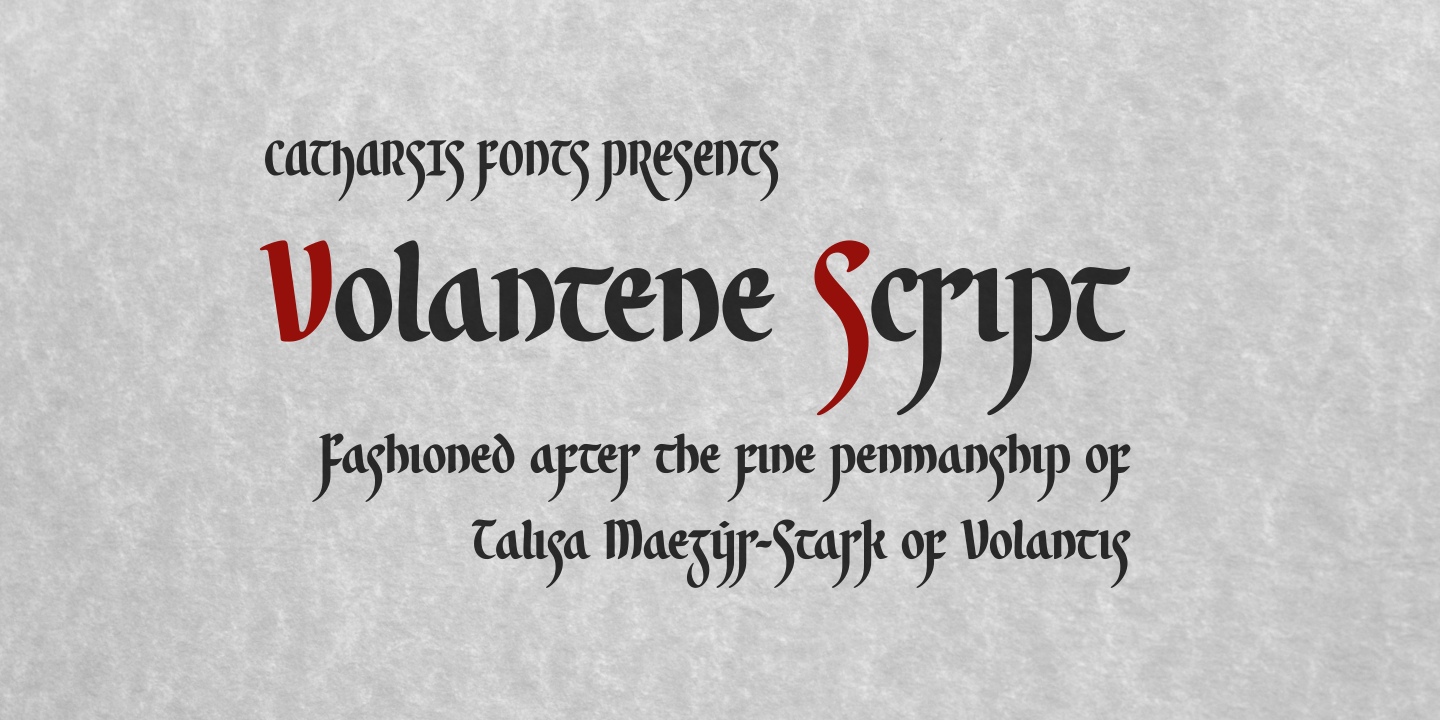
Volantene Script Font
Volantene Script Font is perfect for luxury travel agencies, exotic destination marketing, international cuisine branding, high-end hospitality logos, cultural festival posters, ancient civilization exhibitions, premium wine labels, Mediterranean restaurant menus, archaeological museum displays, and sophisticated travel journals. This exotic typeface brings worldly elegance and cultural richness to any cosmopolitan design project.
Volantene Script Font is exciting because it evokes the mysterious allure of ancient trading cities and forgotten civilizations, featuring flowing letterforms that suggest both Eastern mystique and Western sophistication. Its exotic character creates an immediate sense of adventure, cultural depth, and luxurious travel experiences.
The Volantene Script Font family includes Regular weight with ornamental swashes, cultural flourishes, decorative ligatures, and exotic accent marks that enhance the international aesthetic, providing designers with authentic tools for creating typography that celebrates global cultural heritage and sophisticated worldliness.
Luxury travel designers appreciate Volantene Script Font for its exceptional ability to evoke specific geographical regions and cultural experiences through carefully crafted letterforms. The font's flowing character and exotic details create immediate associations with ancient trade routes, cosmopolitan cities, and the refined pleasures of international cultural exploration.
The cultural authenticity of Volantene Script Font draws inspiration from historical manuscripts, ancient inscriptions, and the rich calligraphic traditions of Mediterranean and Eastern civilizations, making it particularly effective for brands seeking to establish connections with cultural heritage and international sophistication. Creative teams working on luxury hospitality find this font essential for conveying authenticity.
Whether used for exclusive travel experiences, cultural heritage projects, or international luxury brands, Volantene Script Font delivers the perfect synthesis of exotic mystery and refined elegance. Its worldly appeal and cultural sophistication make it an indispensable choice for communicating international prestige and celebrating the rich diversity of global cultural traditions.